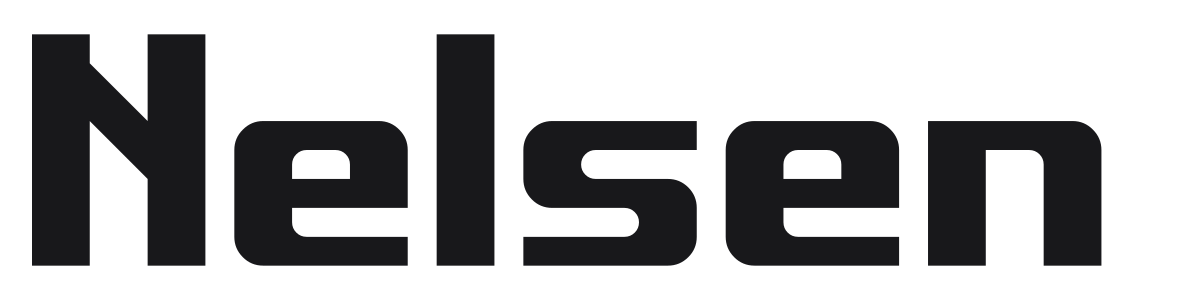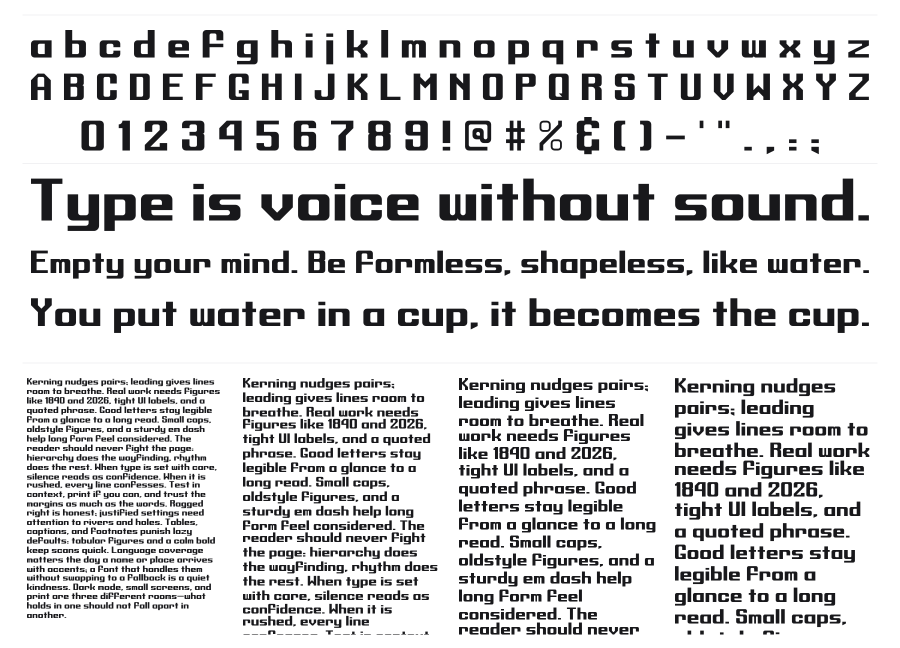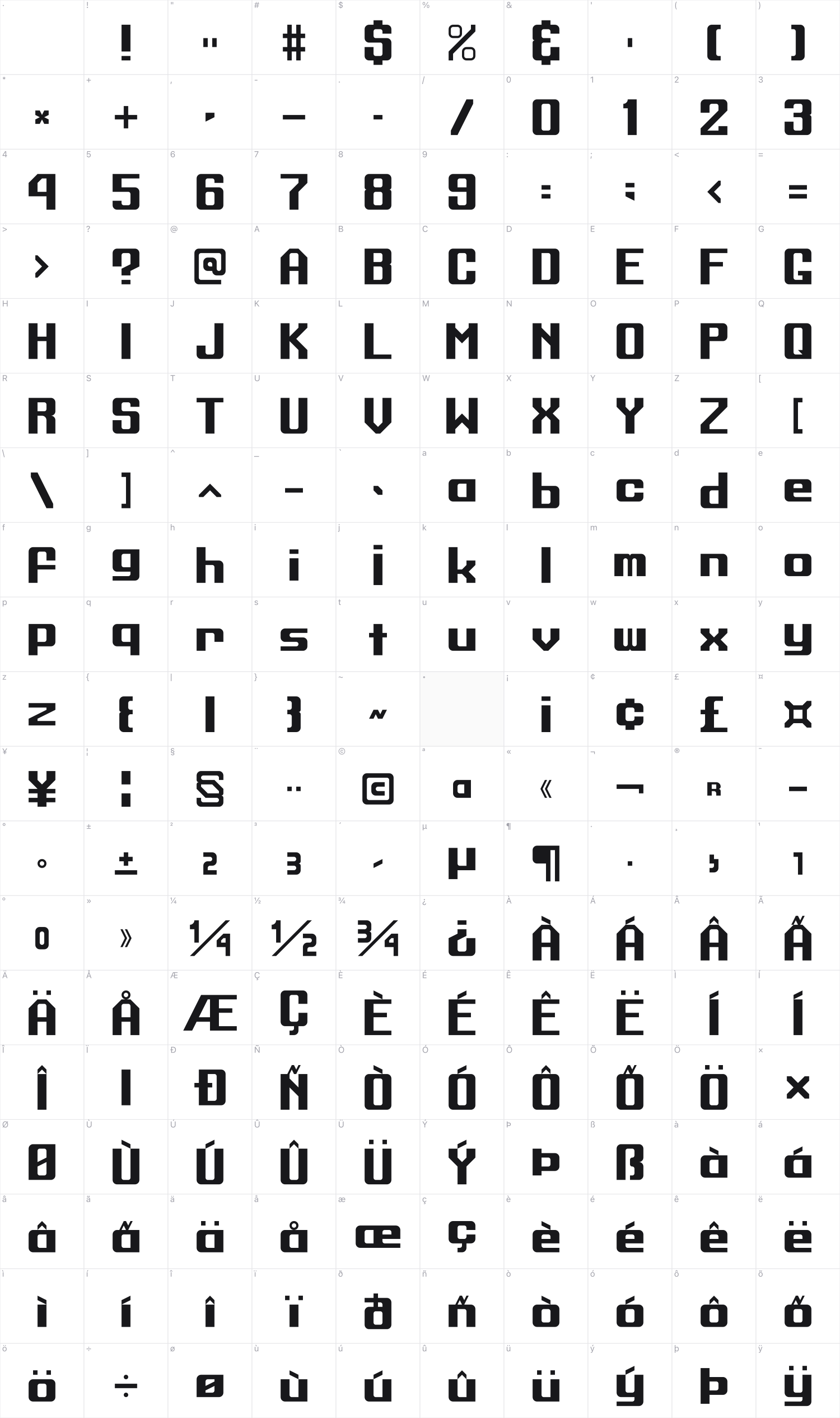
Nelsen
Nelsen is a bold square sans-serif vectorised from the pixel font 'Digits' featured in the 'Chouhou Joutai' series. Its heavy, blocky construction and subtle rounded corners translate pixel-grid geometry into smooth, scalable forms. The result sits comfortably in gaming UIs, tech branding, and anywhere that needs a strong digital presence.